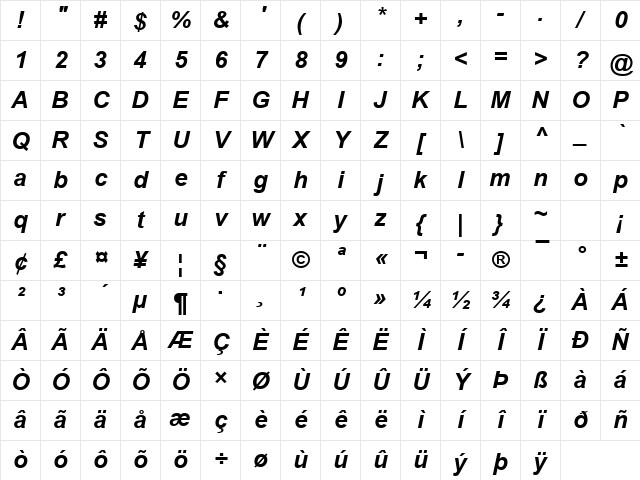
Complete Arial Bold Italic glyph index. Displaying only characters natively supported by Arial Bold Italic font.
Arial is a composed and adaptable typeface that performs quietly and consistently across a wide range of design contexts. The slanted form adds forward momentum and visual energy. Its bold stroke weight gives it real presence on the page.